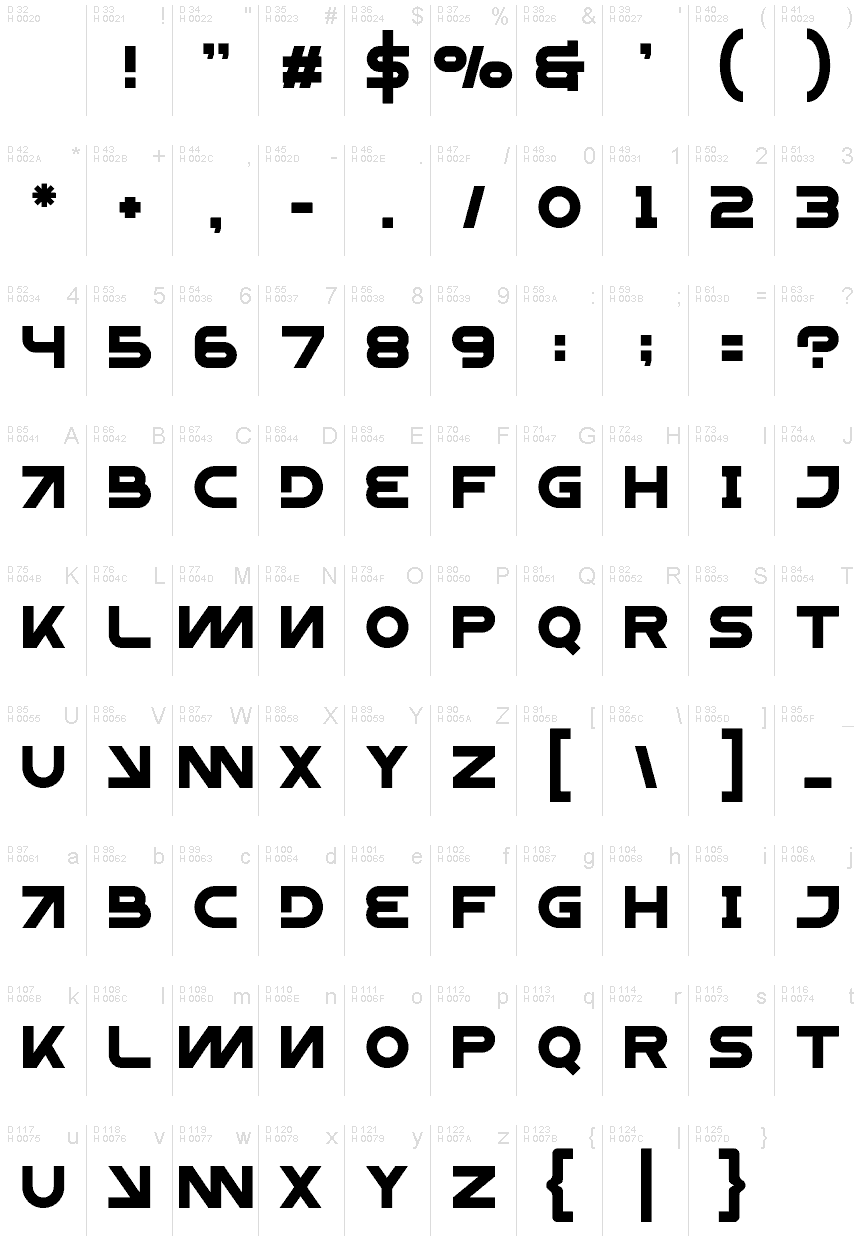
MOON STONE
Moon Stone font, designed by Gilang Ternadho, captures the spirit of a bold and expanded display with its futuristic style. The font evokes a modernist aesthetic, integrating elements of geometry and symmetry into its minimalist design. The calculated balance seen within Moon Stone makes it suitable for sizable text where the objective is to communicate a clear message.